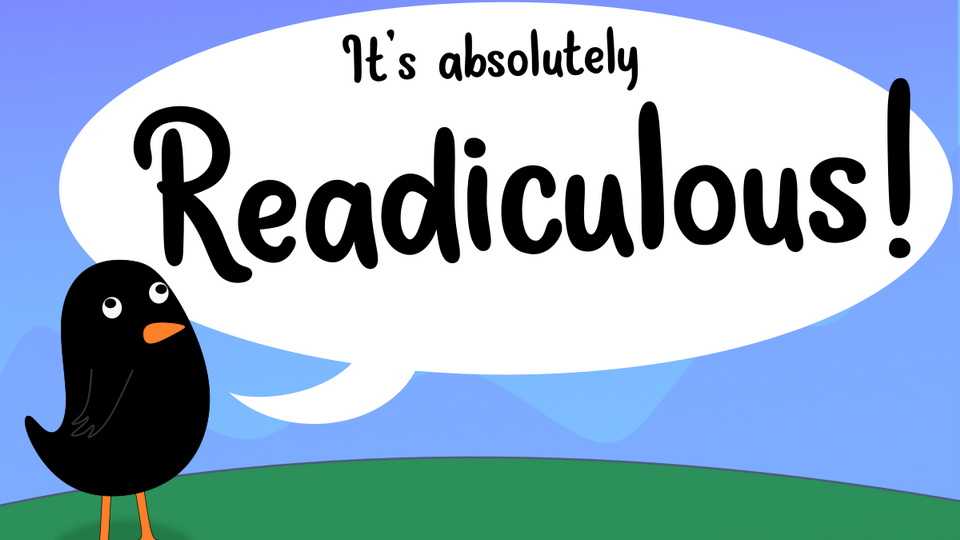
Readiculous Font › Fontesk – Download Grátis
Download Readiculous font, a fun and playful hand drawn marker typeface. Readiculous font is designed with a natural touch of handwriting so it’s suitable for crafts, quotes, notes, social media and other projects.